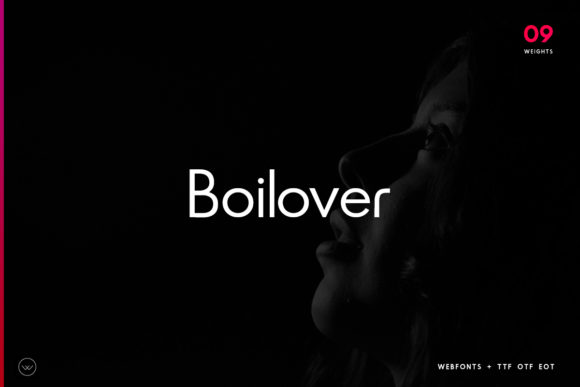
I still remember the frustration of working on a project, hours poured into the design, and yet, something felt off. The font I was using just didn’t seem to fit. It was like trying to put a square peg in a round hole. My client was breathing down my neck, and I was on the verge of pulling my hair out. That’s when I stumbled upon Boilover Font. A minimal and neat sans serif font that caught my eye and solved my problem. In this article, I’ll share my experience with Boilover, its features, and how to make the most of it in your designs.
First Impressions: A Review of Boilover Font
- ✨ Clean and Minimal Design: Boilover’s simplicity makes it incredibly versatile. It can be used for a wide range of projects, from modern brochures to sleek digital interfaces.
- ✅ Highly Legible: The font’s clear lines and balanced proportions ensure that it remains readable even at small sizes.
- 💡 OpenType Features: Boilover comes with a range of OpenType features, including stylistic alternates and glyphs, which can add a creative twist to your designs.
While Boilover is an excellent font, it’s not without its quirks. Here are a few things to keep in mind:
- 🤔 Limited Serif Options: As a sans serif font, Boilover might not be the best choice for projects that require a traditional serif look.
- ⚠️ Some Glyphs May Not Display Correctly: Depending on the platform or software used, some of Boilover’s more advanced glyphs might not display correctly. Always test the font in your design environment.
The Story Behind Boilover: Designer Inspiration
The story behind Boilover’s creation is one of simplicity and elegance. Designed with the modern designer in mind, Boilover aims to bring a clean and minimal aesthetic to a wide range of projects. While the actual designer remains a mystery, it’s clear that the goal was to create a font that could seamlessly integrate into any design workflow, offering both style and versatility.
Q: Is Boilover suitable for body text?
A: Yes, Boilover is highly legible and can be used for body text, especially in digital formats. However, for very long documents or print materials, you might want to consider a font specifically optimized for reading comfort.
Q: Does Boilover support multiple languages?
A: Boilover likely supports a range of languages, but the extent of its language support depends on the specific characters and glyphs included. Always test the font with the languages you need to support.
Q: How does Boilover compare to other sans serif fonts?
A: Boilover stands out for its clean lines, minimal design, and versatility. While similar to other sans serif fonts like Montserrat or Open Sans, Boilover’s unique characteristics make it a great option for designers looking for something fresh and modern.